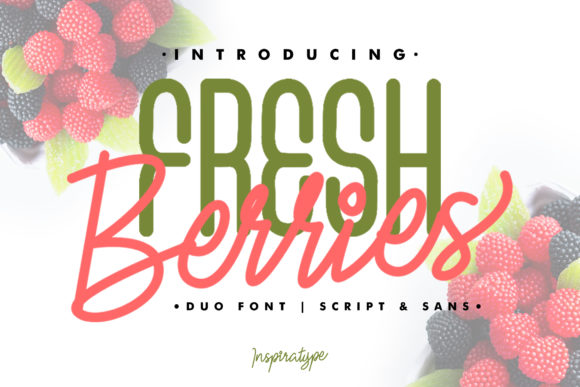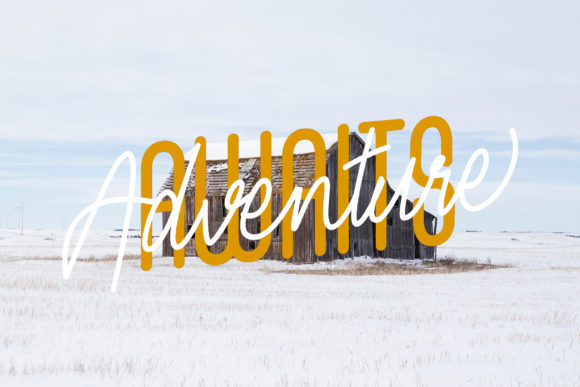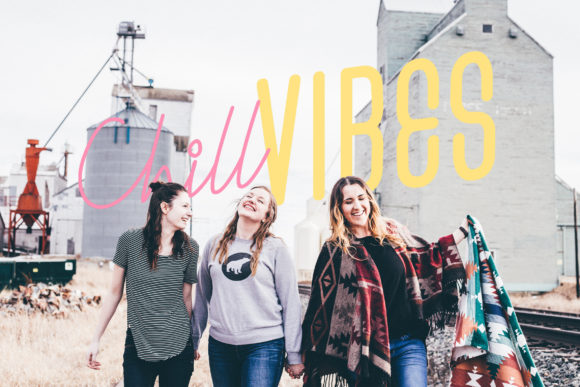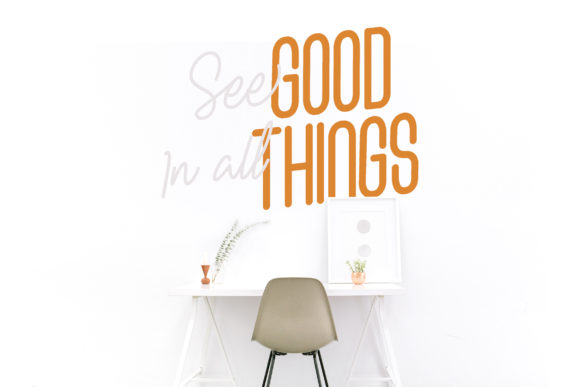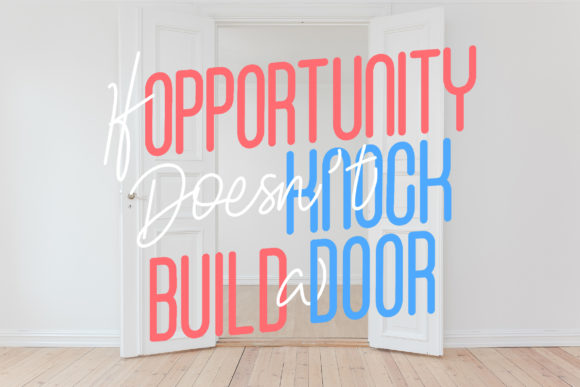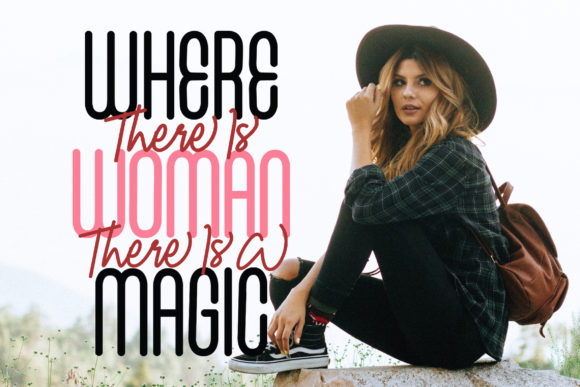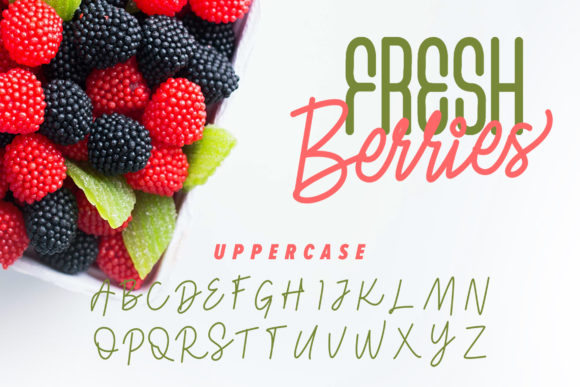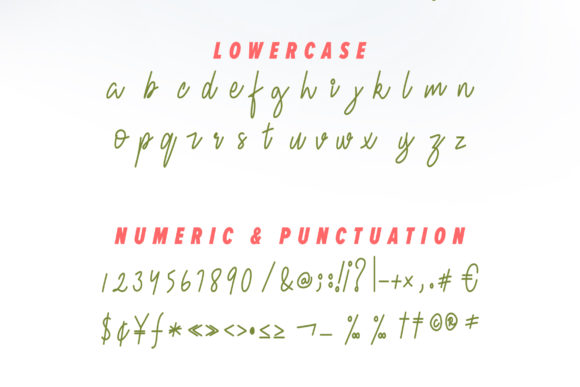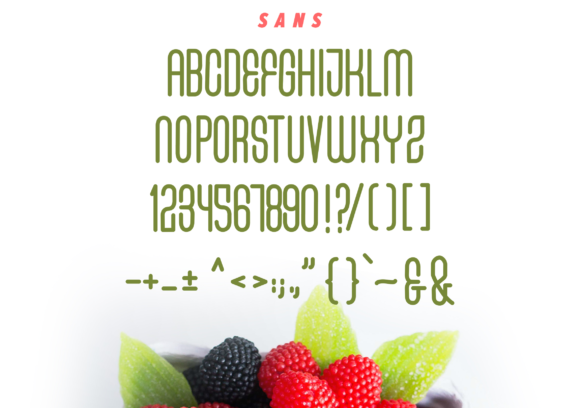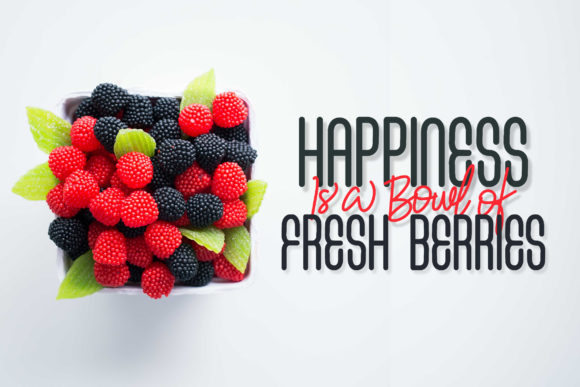
Fresh Berries Font
About Fresh Berries Font
Fresh Berries is a unique and fresh font with a lovely charm. Fall in love with its beautiful and carefully crafted elements, and use it for a big variety of design projects.